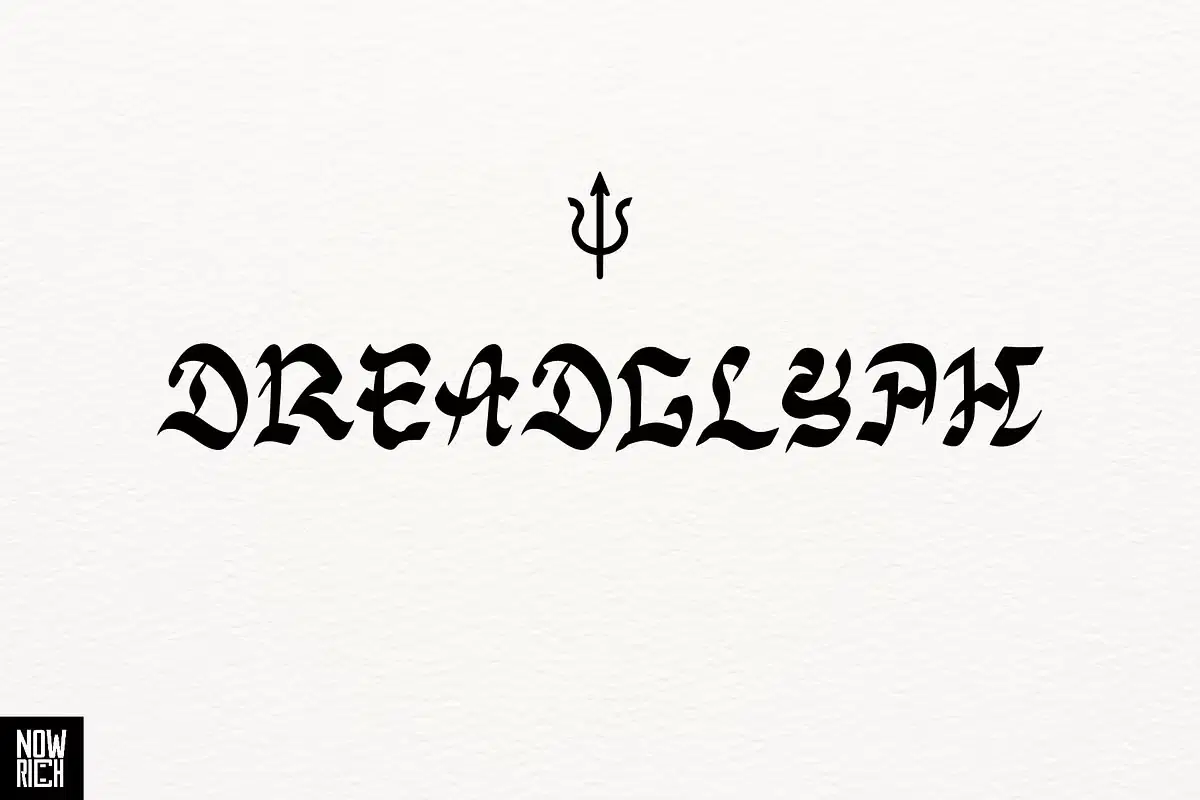
Dreadglyph Typeface
Nouric Design
Introducing a bold reinterpretation of the timeless blackletter font style
Infused with the gritty energy of urban street design and a distinctly masculine edge. This typeface blends elements of tradition with contemporary flair, offering captivating uppercase and lowercase characters that command attention. Ideal for branding, logos, tattoos, and illustrations that demand a fusion of rugged authenticity and innovative style. Elevate your graphic projects with this font, designed to make a statement on the streets and beyond.